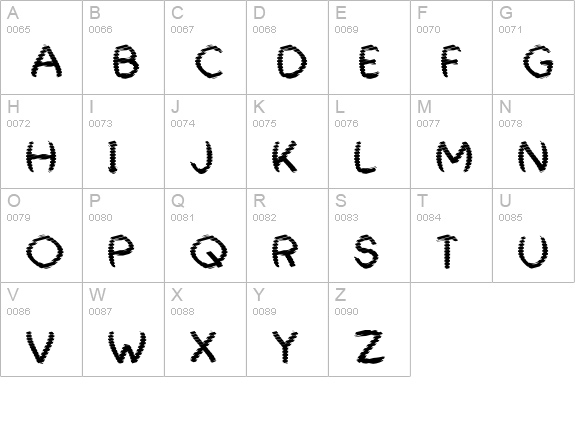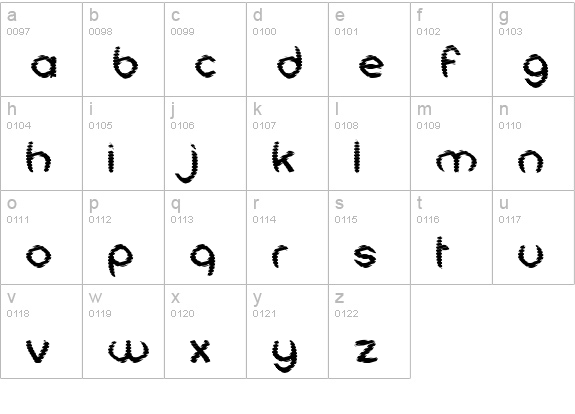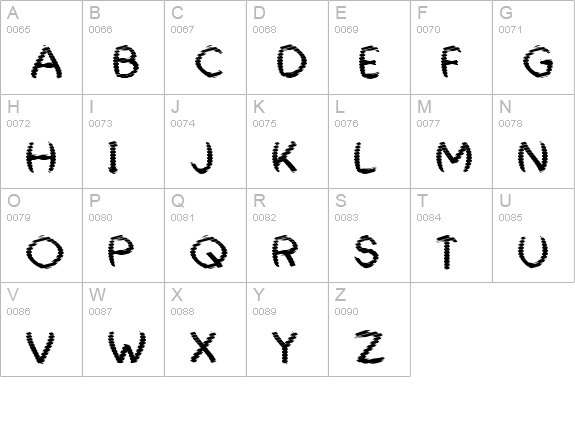
Introducing Universal Shatter, a stunningly dynamic and captivating font that is sure to make your designs stand out from the crowd. With its unique shattered letterforms, this font embodies a sense of energy and movement that effortlessly grabs the viewer's attention. Universal Shatter is a versatile font that can be used for a wide range of design projects. Whether you're designing a poster, a logo, or even a website, this font will bring a touch of excitement and originality to your work. Its bold and edgy appearance makes it perfect for projects that require a strong and impactful visual presence. But what sets Universal Shatter apart from other fonts is not just its striking design - it's also the fact that it is completely free. That's right, you can freely download and use Universal Shatter without any restrictions or limitations. This font is available exclusively at FontsMarket.com, a trusted and reliable source for high-quality fonts. So why wait? Give your designs an extra dose of creativity and vibrancy with Universal Shatter. Download it for free today at FontsMarket.com and let your imagination run wild.